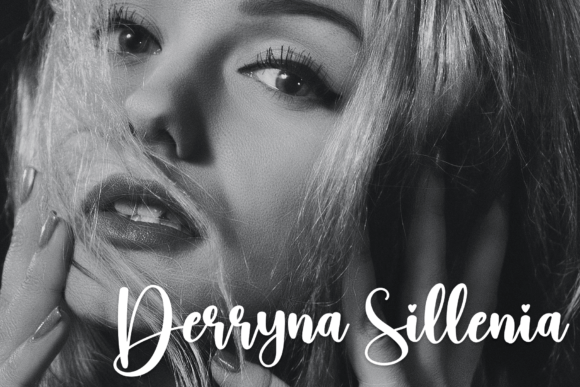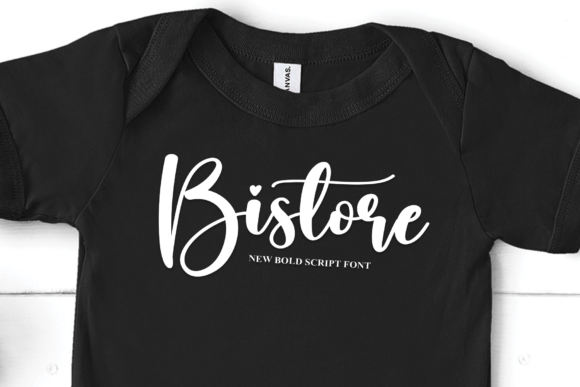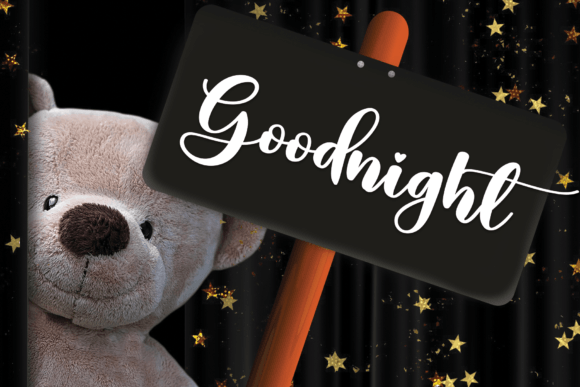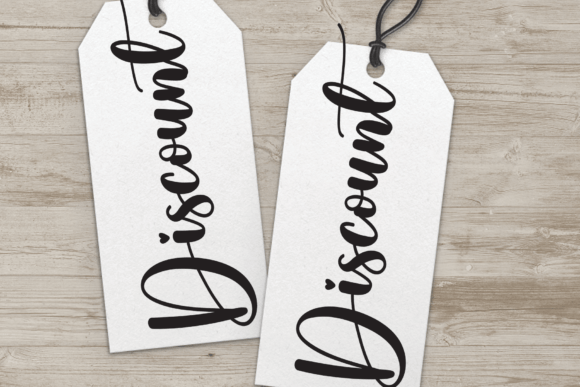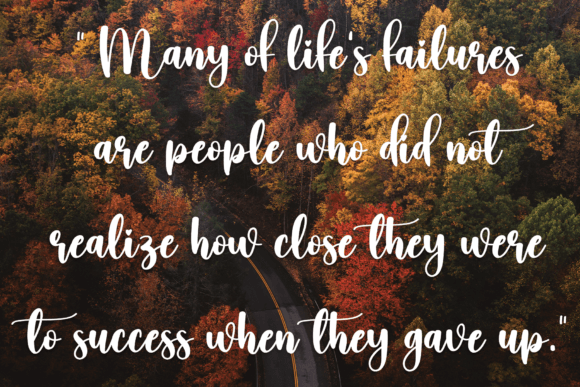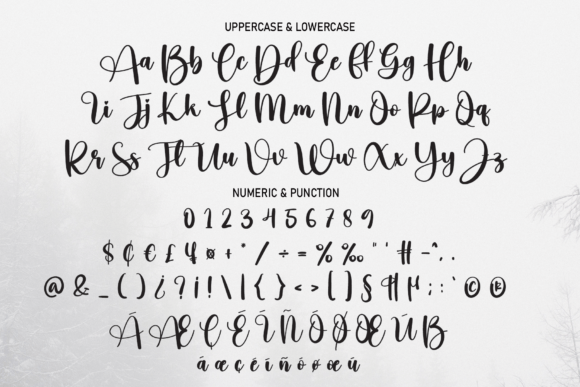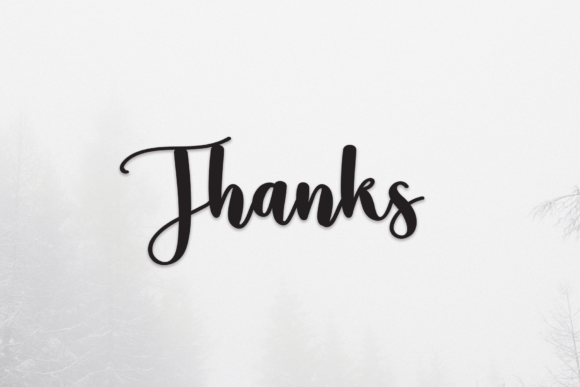
Chillin Font
About Chillin Font
Chillin is not just a font; it’s a delightful handwritten script that infuses a sense of casual charm and warmth into a diverse range of creative projects. This versatile typeface is well-suited for wall displays, wedding invitations, social media posts, logos, advertisements, product packaging, and a variety of other design applications.
The appeal of Chillin lies in its relaxed and friendly handwritten style. The characters are crafted with a casual touch, giving your projects a laid-back and approachable vibe. This makes Chillin an excellent choice for projects that aim to convey a sense of ease and friendliness.
In wall displays and wedding invitations, Chillin brings a unique and charming element. Its handwritten script adds a personal and friendly touch, ensuring that your designs radiate warmth and approachability. Chillin is the perfect choice when you want your projects to exude a sense of relaxed charm and genuine connection.
For social media posts, logos, and advertisements, Chillin’s friendly script enhances the overall appeal of your brand. The casual design adds a touch of approachable style, making Chillin a versatile choice for projects where a comfortable and friendly atmosphere is desired.
In product packaging and label designs, Chillin’s relaxed and handwritten style can convey authenticity and a connection to the audience. The laid-back charm of Chillin makes it an excellent option for brands that want to establish a warm and approachable identity.
By incorporating Chillin into your font collection, you’re not just adding a typeface; you’re selecting a design element that brings a sense of ease and friendliness to your wall displays, wedding invitations, and various creative projects. Chillin is more than a font; it’s an embodiment of handwritten charm that transforms your designs into approachable and genuinely delightful works of art.